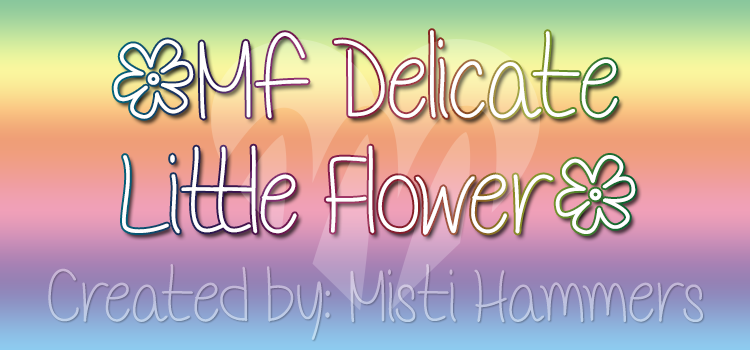
Mf Delicate Little Flower by Misti's Fonts
Whimsical, floral sans-serif font with ornate details, ideal for crafting, DIY, or whimsical designs featuring flowers.